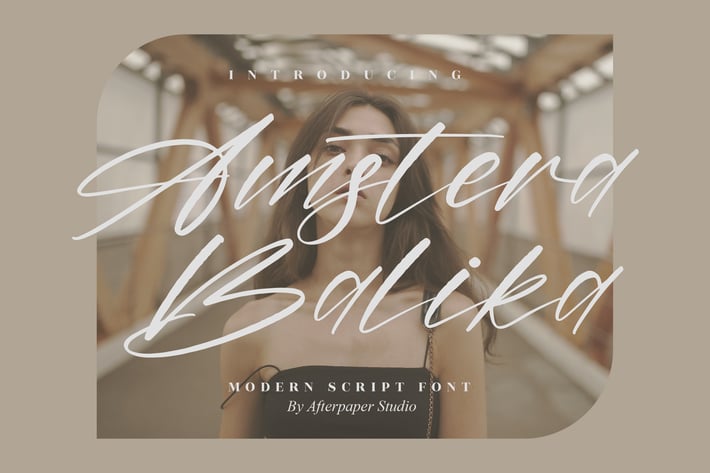
Amstera Balika Modern Script Font
Amstera Balika is a sophisticated modern script font that beautifully blends casual elegance with natural handwriting flow. Its smooth strokes and expressive curves create an effortlessly chic aesthetic, perfect for designs that require a personal yet refined touch. This typeface adds warmth and charm to both digital and printed projects, making your visuals stand out with authentic sophistication.
Modern handwritten style with organic curves
Includes stylistic alternates and ligatures
Multilingual support for global design needs
Branding and identity design
Editorial and magazine layouts
Social media visuals and creative campaigns
Product packaging and label design
* Invitations, cards, and signature logos
Where modern elegance meets handwritten soul — elevate your designs with Amstera Balika’s timeless charm.